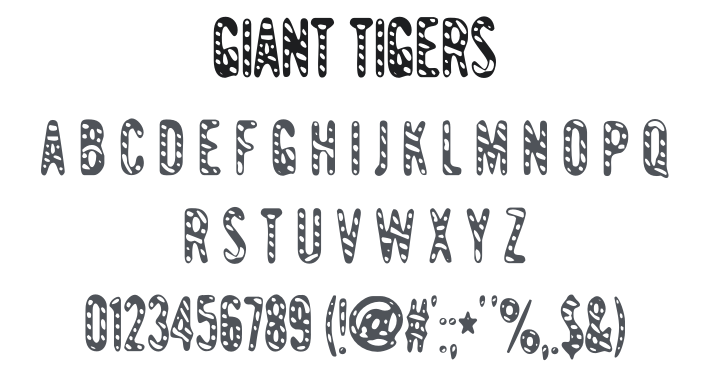
Giant Tigers Font Family
About Giant Tigers
Giant Tigers is a bold, striped decorative sans-serif with a hazy, slightly blurred quality — as if letterforms are seen through frosted glass or printed with a bleary, diffused ink. It comes in three layerable files (base, back, and front) for creative colour-fill effects. Perfect for retro-inspired posters, wild animal-themed branding, festival graphics, and any headline that wants raw, eye-catching texture.